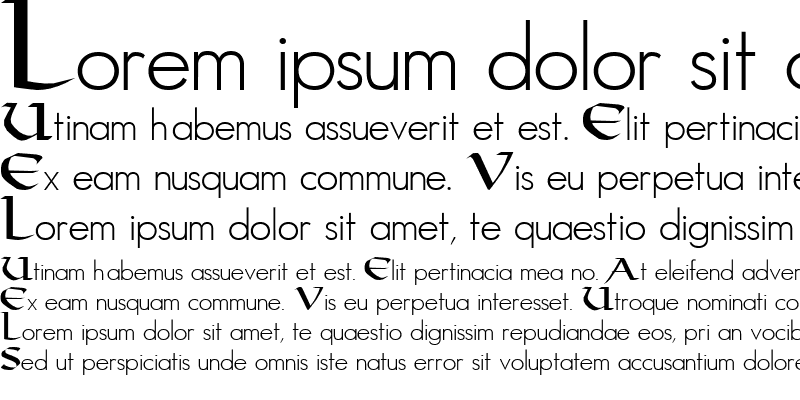
Taranis Font is perfect for Celtic cultural events, mythological publications, ancient history documentaries, thunder-themed branding, storm tracking applications, powerful energy company materials, ancient Gaelic heritage projects, druidic spiritual centers, weather service communications, and thunderously powerful marketing communications.
Taranis Font is exciting because it channels the primordial power and Celtic mystique of the ancient thunder god with its boldly striking letterforms that seem forged by lightning strikes and resonate with the earth-shaking authority of divine storms. Its mythologically powerful character design reflects both the awe-inspiring force of natural phenomena and the spiritual reverence that ancient Celtic peoples held for the gods who controlled the elemental forces of nature, making it perfect for brands seeking to convey elemental power and ancient wisdom.
Taranis Font family includes light, regular, medium, bold, and black weights, each with corresponding italic versions. The font family also features Celtic ornaments, thunder-inspired ligatures, mythological symbols, and storm decorative elements that enhance its powerful aesthetic and ancient Celtic versatility.
This mythologically powerful typeface represents the perfect fusion of Celtic heritage and elemental force. Taranis Font Free Download enables designers to harness its thunder potential before making a commercial commitment. The font's ability to convey both ancient wisdom and natural power makes it ideal for cultural organizations, energy companies, and brands targeting audiences fascinated by Celtic mythology and elemental forces.
Whether you're developing Celtic cultural identities, creating mythological publication materials, or designing storm-powered communications, Taranis Font brings an unmistakable sense of thunderous authority and ancient Celtic mystique to every project. Its powerful character and mythological heritage create commanding connections that resonate with audiences seeking elemental power and Celtic spiritual wisdom.
The font's versatility excels in cultural and energy environments where power and ancient authenticity are paramount. Its thunderous character makes it particularly effective for Celtic organizations, energy companies, weather services, and cultural institutions seeking to establish powerful relationships with audiences passionate about Celtic heritage and natural elemental forces.
For designers working on projects requiring genuine Celtic power and mythological appeal, Taranis Font offers an exceptional solution. Its thunderous presence and comprehensive Celtic elements provide the tools needed for creating truly powerful communications, while its ancient authority ensures your designs capture the elemental force and Celtic wisdom that defines the most commanding natural phenomena and ancient mythological traditions.